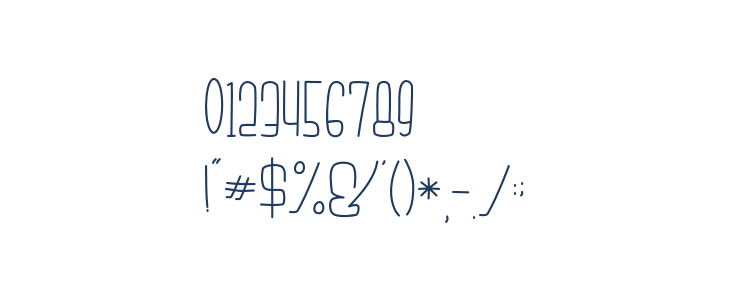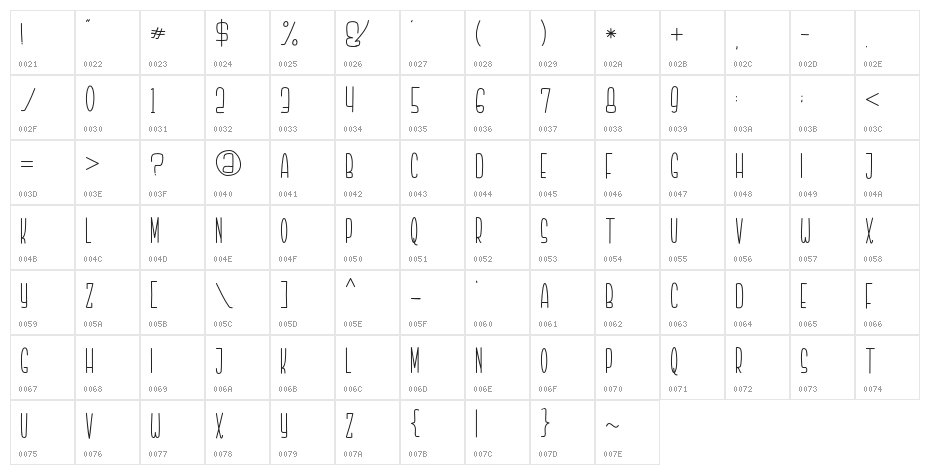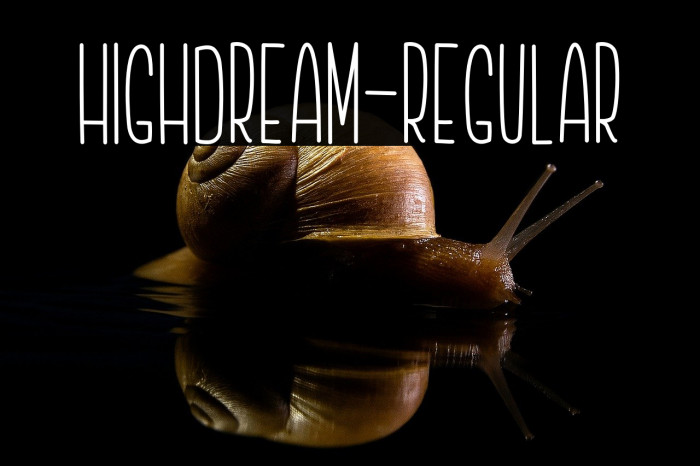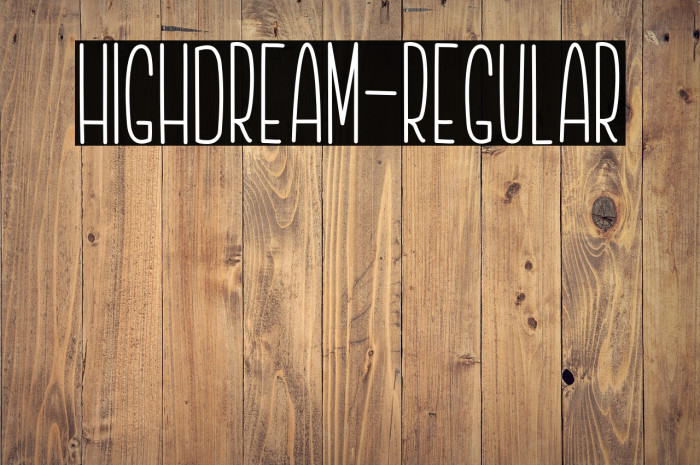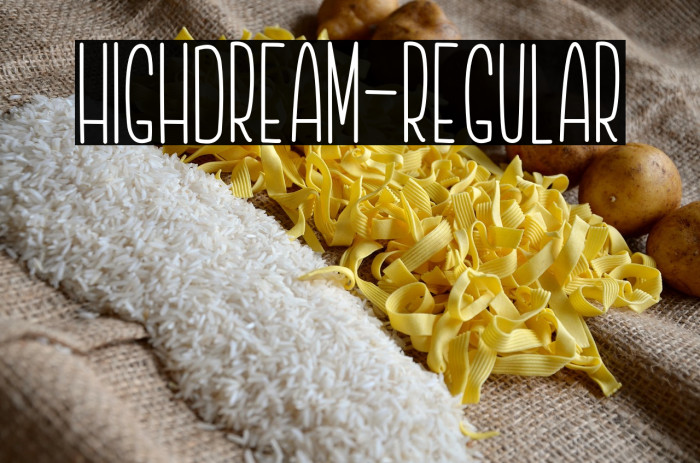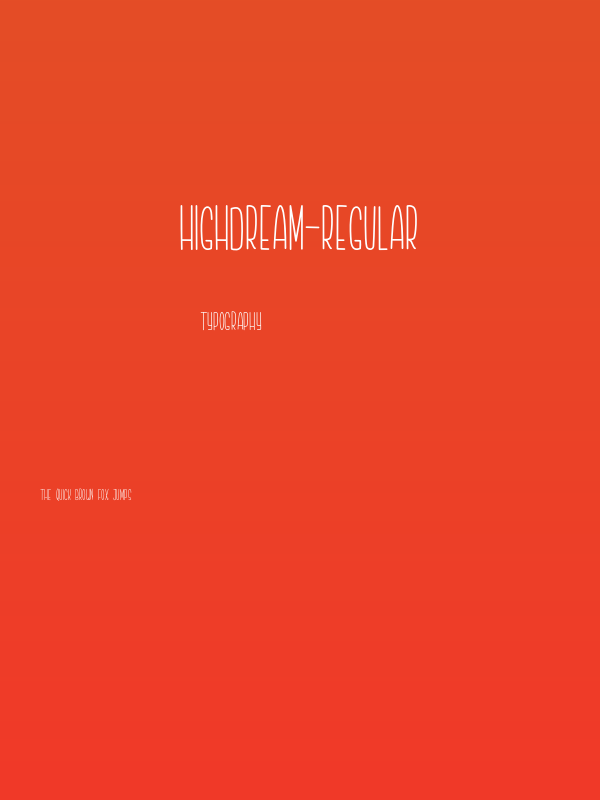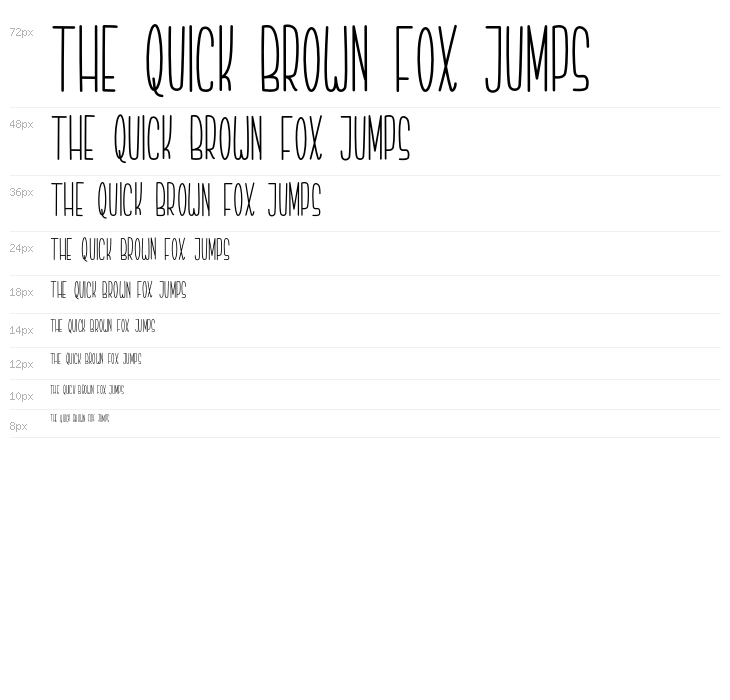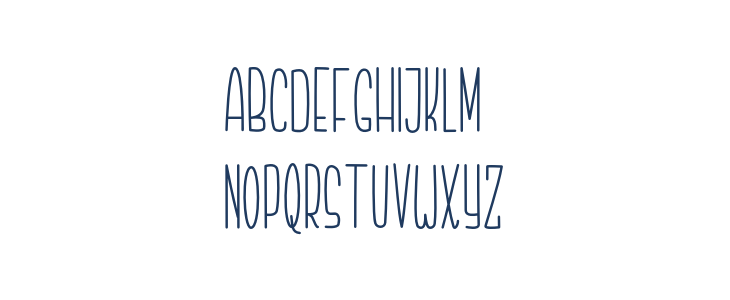
Highdream-Regular Font
Highdream-Regular Description
This font features tall, narrow characters with a playful and whimsical style. The letters are elongated with a consistent stroke width, giving it a modern yet quirky appearance. The uppercase and lowercase letters maintain a uniform height, creating a cohesive look. The numbers are similarly styled, with a slight curve that adds to the font's charm. Special characters are included, maintaining the same elongated and narrow design. This font is ideal for projects that require a touch of fun and creativity, while still maintaining readability.
| Proposed Projects | Ideal for children's books, playful branding, creative posters, and unique invitations. |